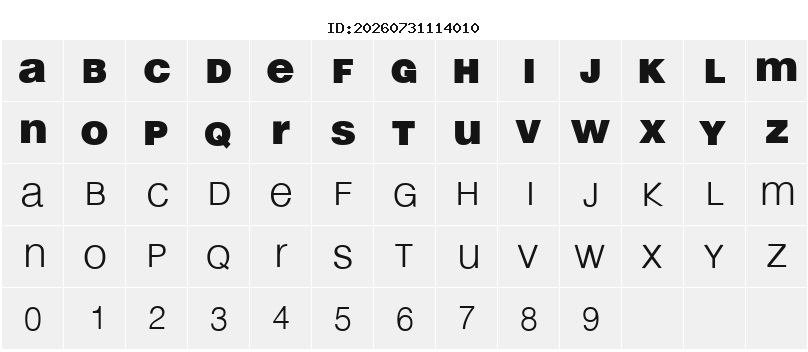
About Light & Black.ttf
Light & Black.ttf is a modern, elegant sans-serif font designed for ultimate readability and visual harmony. Perfect for branding, headlines, web design, and print materials.